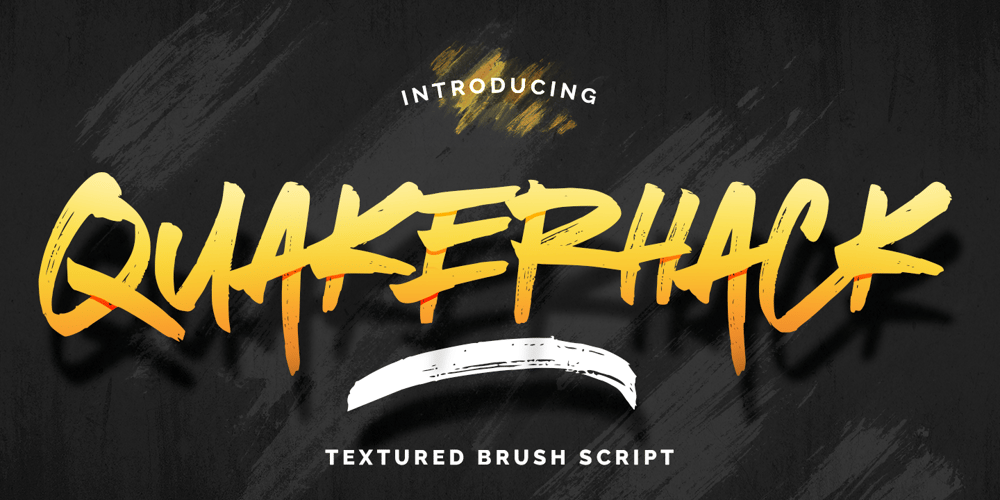
Quakerhack Font Family was designed by Abdul Malik Wisnu and published by Almarkha Type. Quakerhack contains 3 styles and family package options. Introducing Quakerhack is a best handwritten brush that is written casually and quickly. Letters are made with brushes on Procreate. Then scanned and carefully drawn into vector format.That is why Quakerhack has charming, authentic and relaxed characteristic more natural look to your text with a more natural look to your text. You can activate Ligature OpenType panel to make these two styles. It also has many alternatives and underlines that make your text and design more interesting. Quakerhack is perfect for homeware designs,branding projects, Logo design, Quotes product packaging.